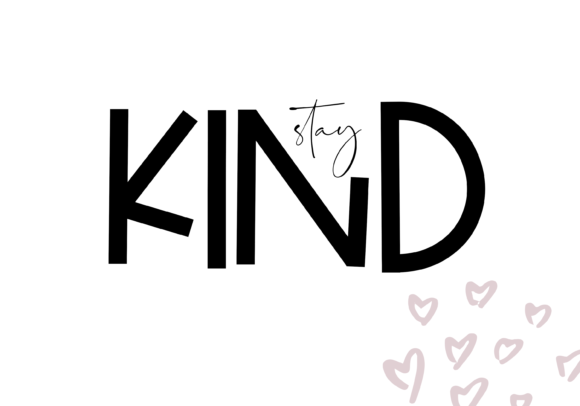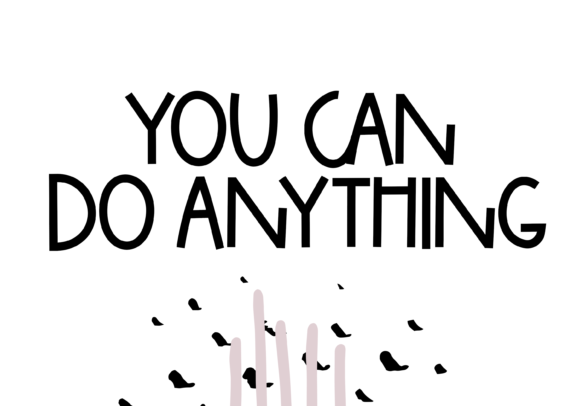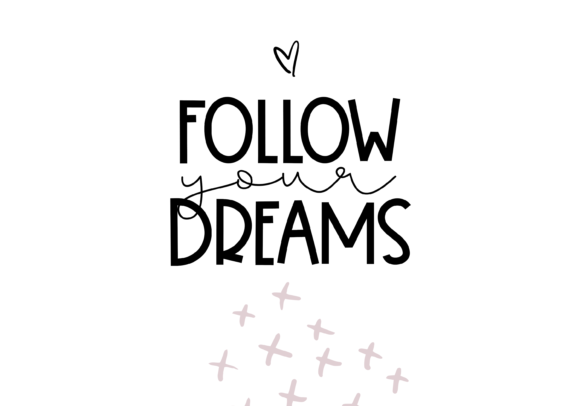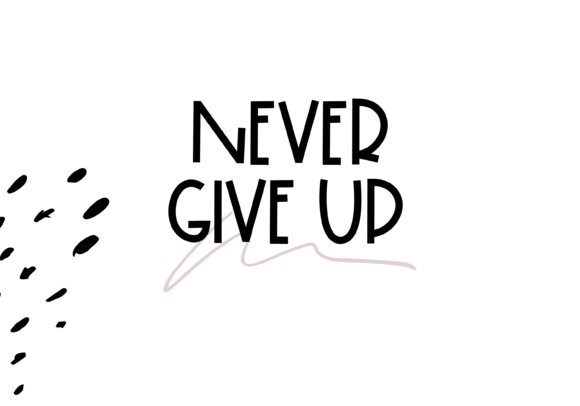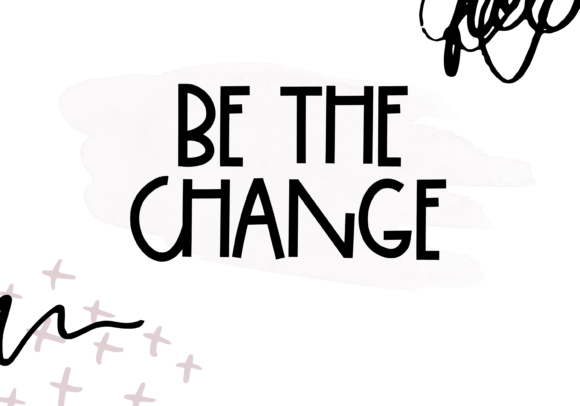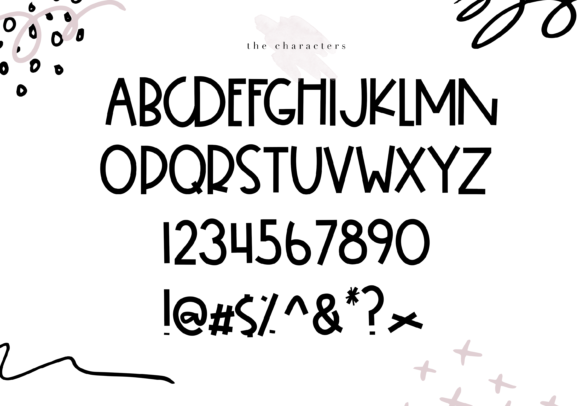
Introduction to Snicker Font
Snicker is a cute and charming display font with a lovely feel.
Get inspired by its unique quirk .
Key Features of Snicker Font
Why Choose Snicker Font?